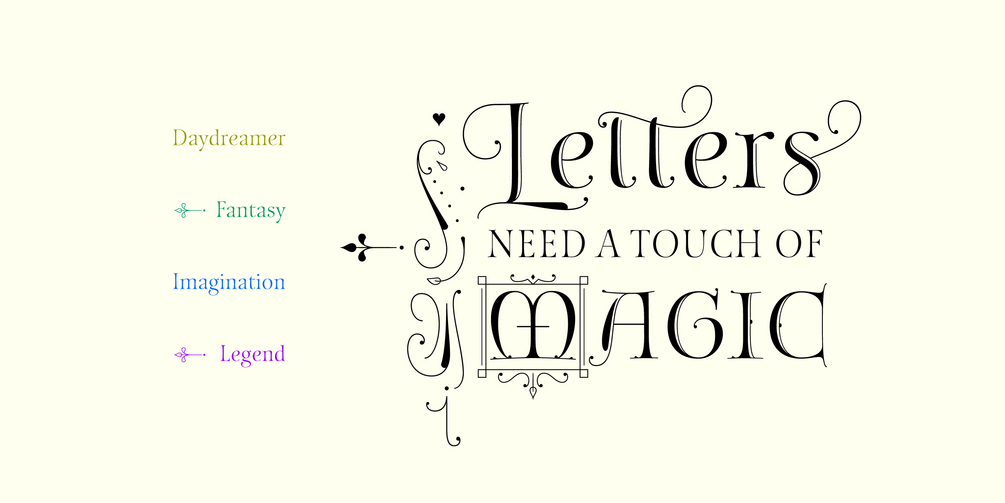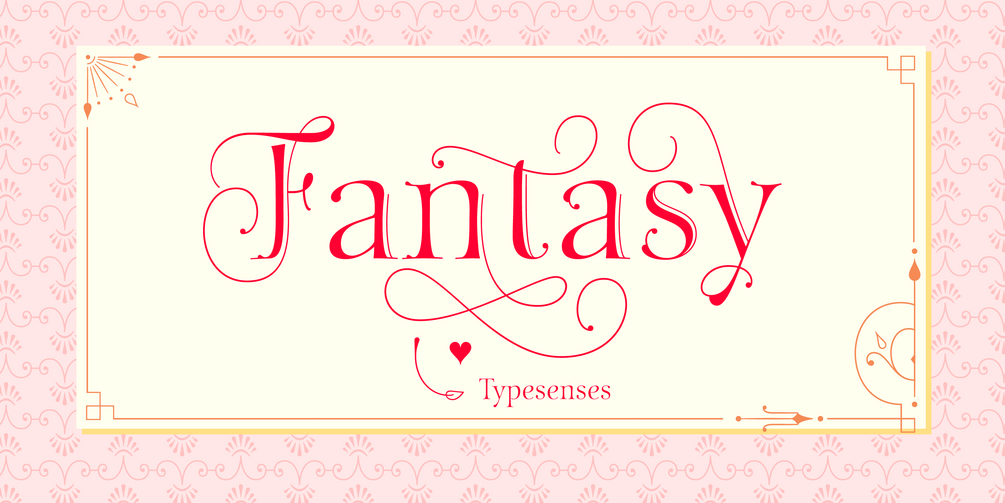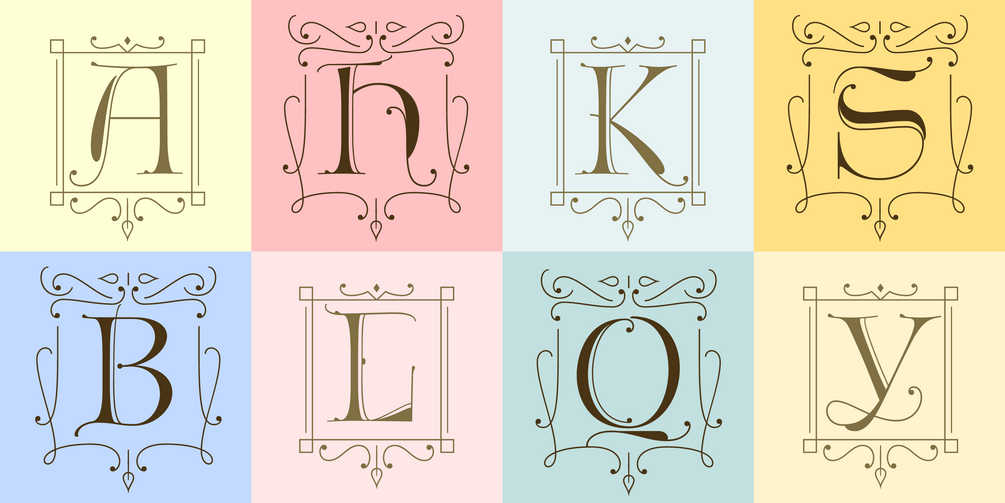
Fantasy
Fantasy Pro is the fully-featured OpenType version with two styles of capitals and plenty of swash alternates and ornaments. Each of these varieties is available as separate fonts in addition to Fantasy Std, a set of unadorned standard characters for smaller settings.